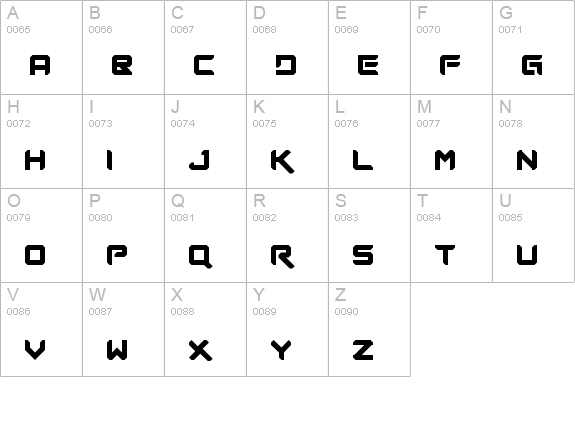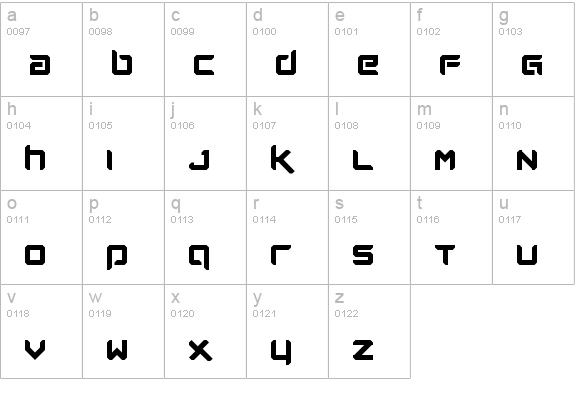
Future Now Regular Font Details
Future Now Regular is the standard, neutral variant in the Future typeface family \xE2\x80\x94 well suited to general body text, paragraphs, and standard typographic work.
Introducing Future Now Regular Font, a visually striking typeface that seamlessly blends futuristic elements with a touch of modern elegance. This captivating font is the perfect choice for those seeking a dynamic and edgy design that sets them apart from the crowd. With its sleek and clean lines, Future Now Regular Font exudes a sense of confidence and sophistication. Its bold and sharp letterforms create a powerful visual impact, making it an ideal choice for headlines, logos, branding materials, and various design projects. What makes Future Now Regular Font even more appealing is that it is freely available to download at FontsMarket.com. This means that you can enjoy the versatility and uniqueness of this font without any cost. Whether you are a professional designer or an enthusiast looking to elevate your creative projects, this font offers an incredible opportunity to enhance your work without breaking the bank. So why wait? Embrace the future of design with Future Now Regular Font and unleash your creativity. Download it for free today at FontsMarket.com and elevate your designs to new heights. Stand out from the crowd and make a lasting impression with this exceptional font that combines contemporary aesthetics with a hint of futuristic allure.